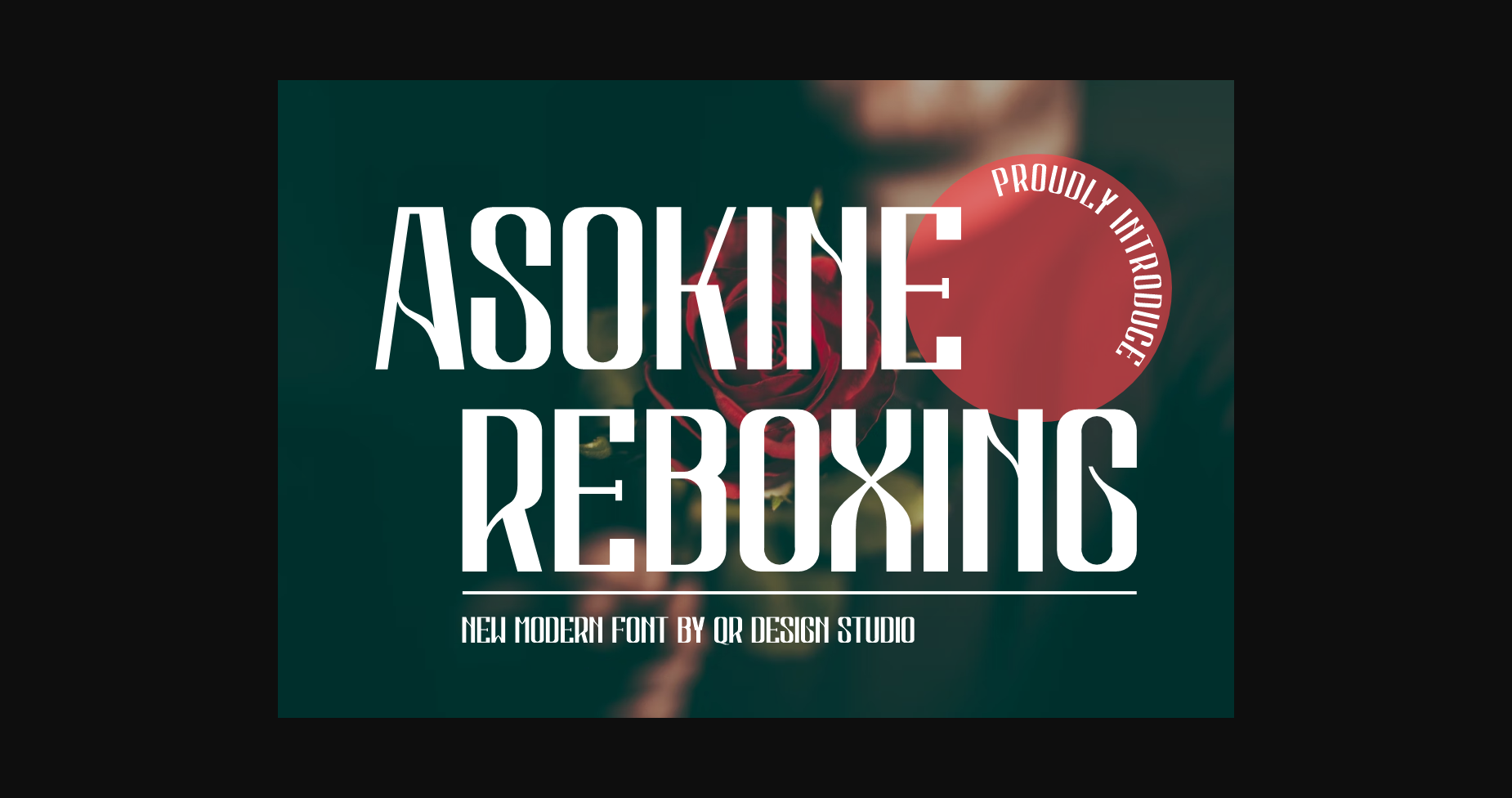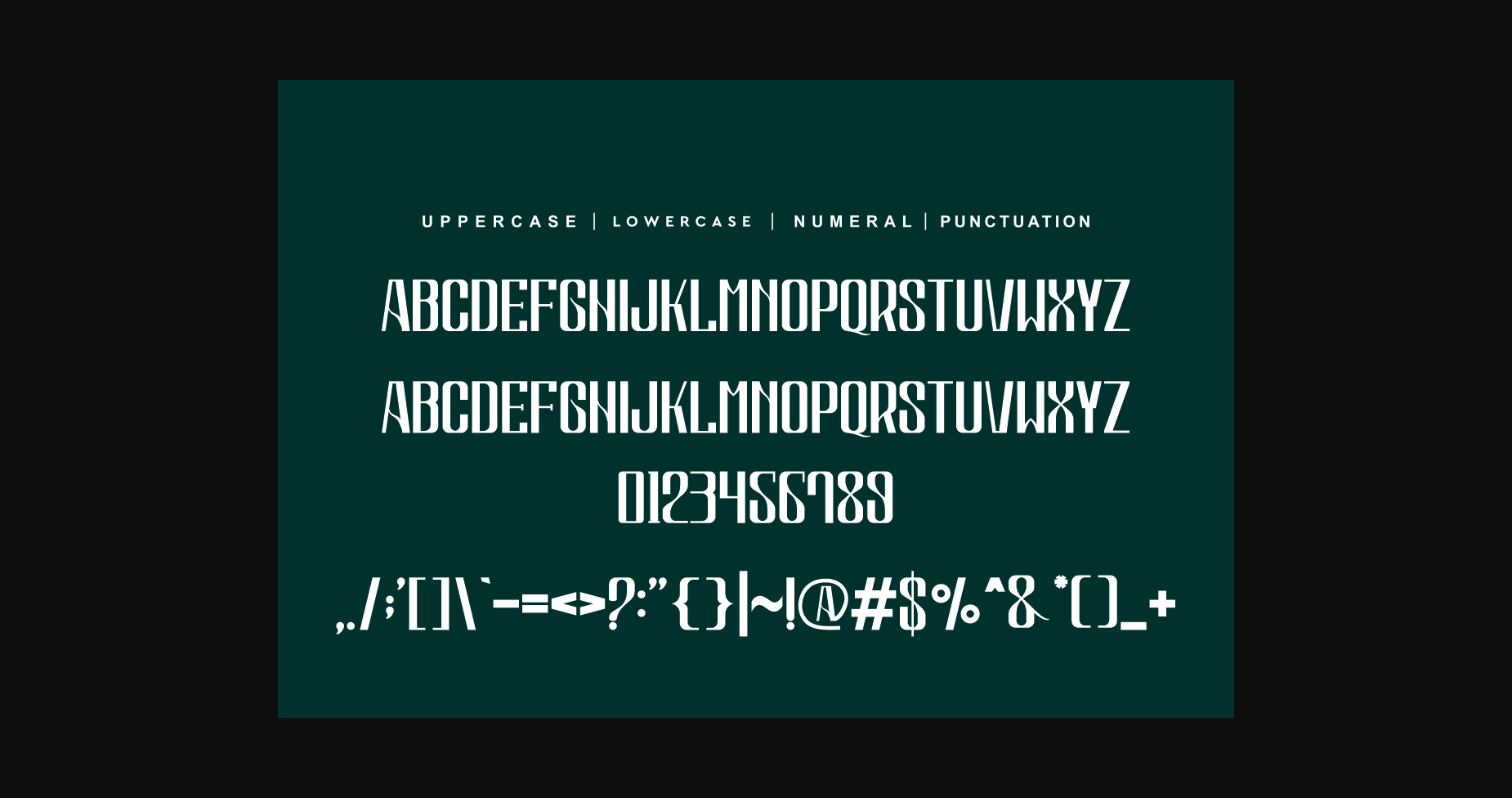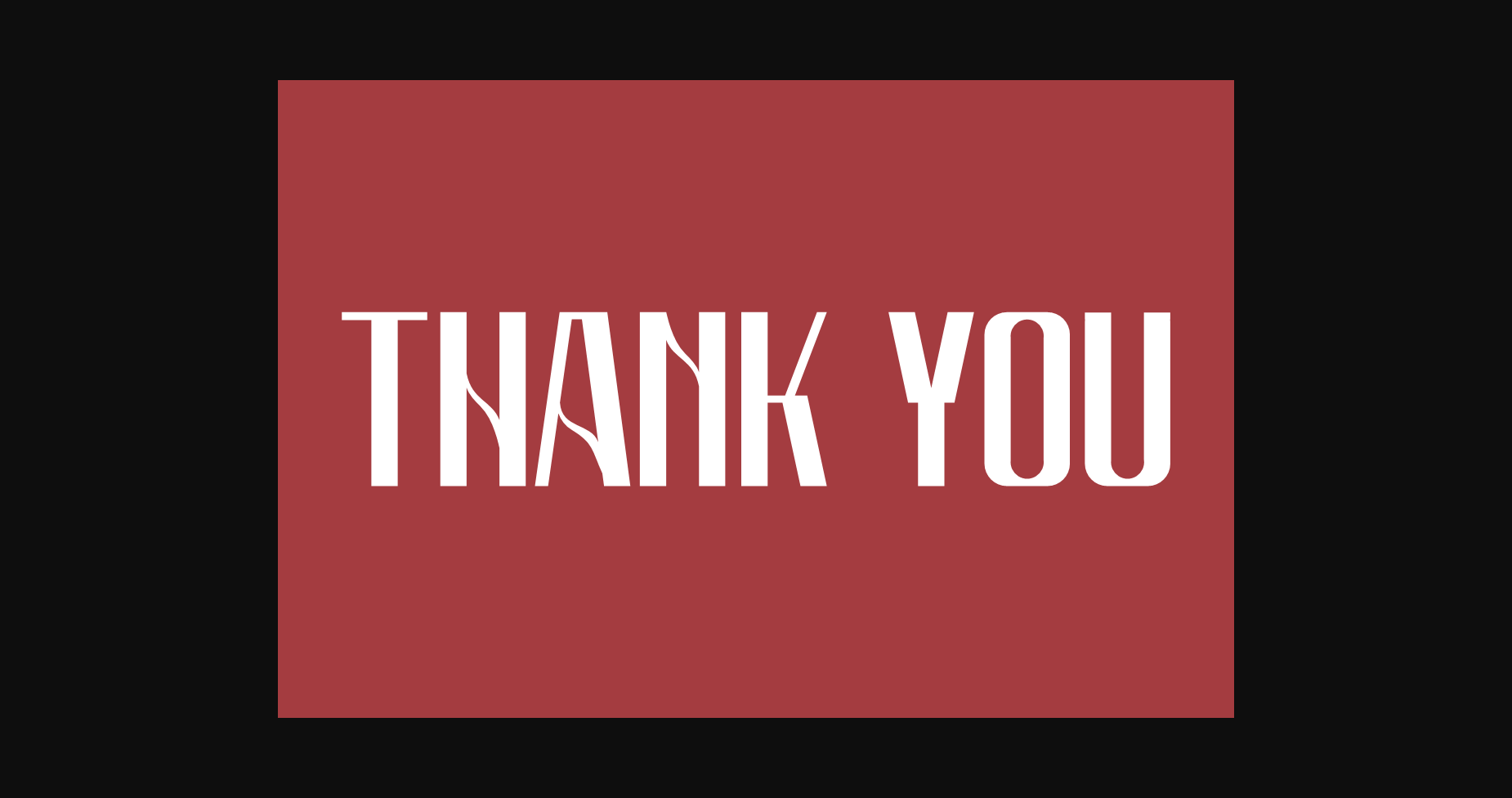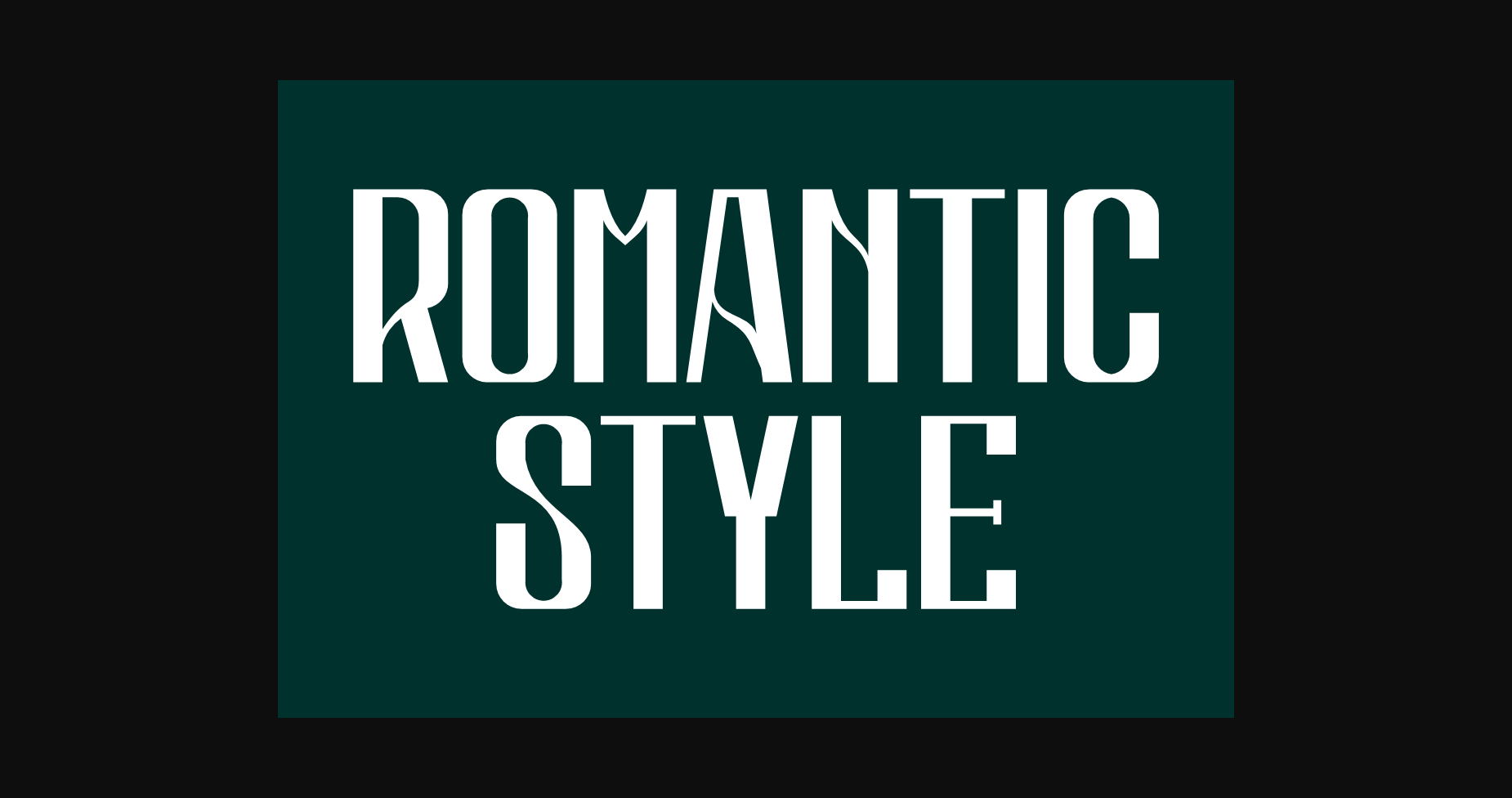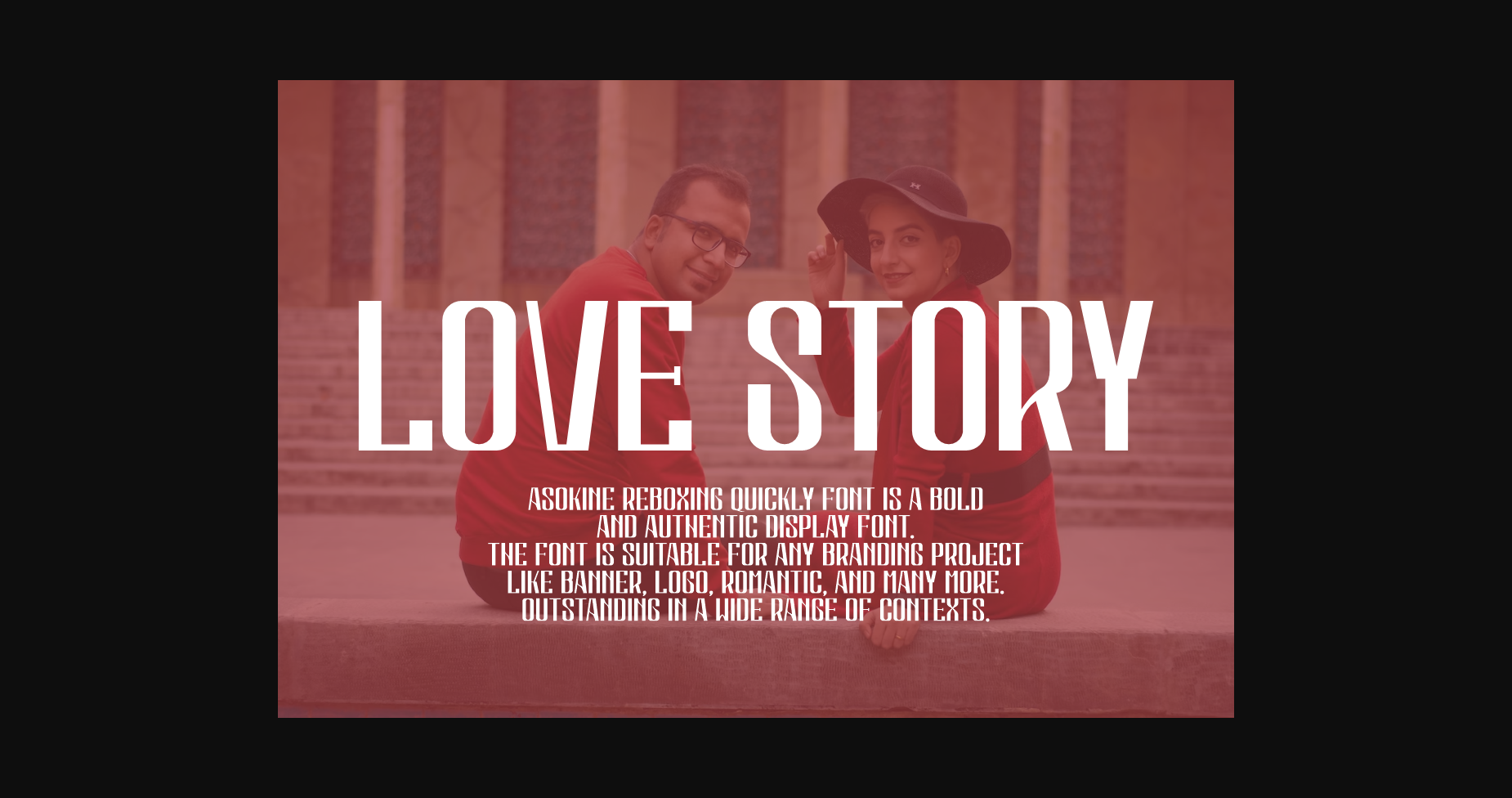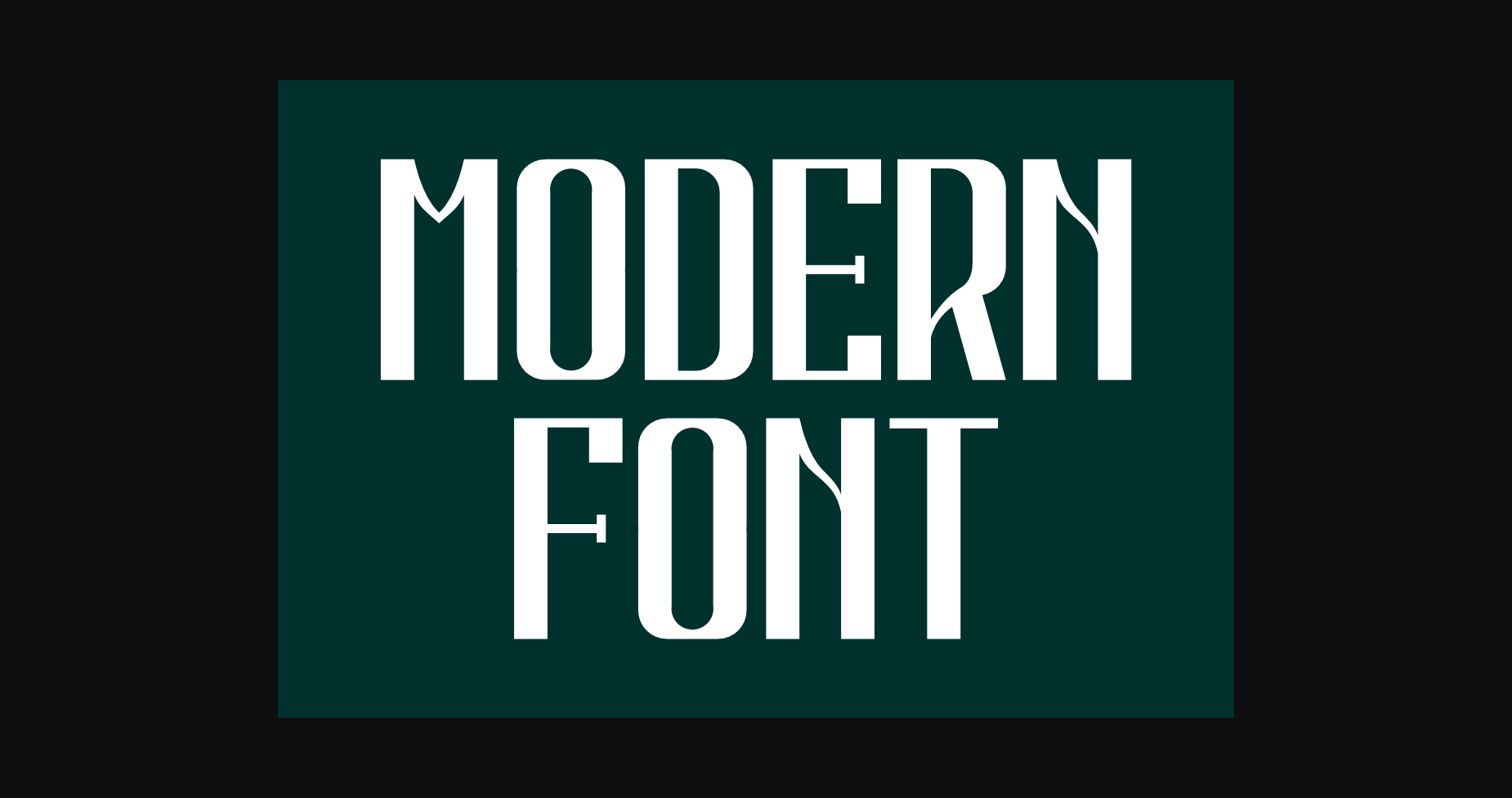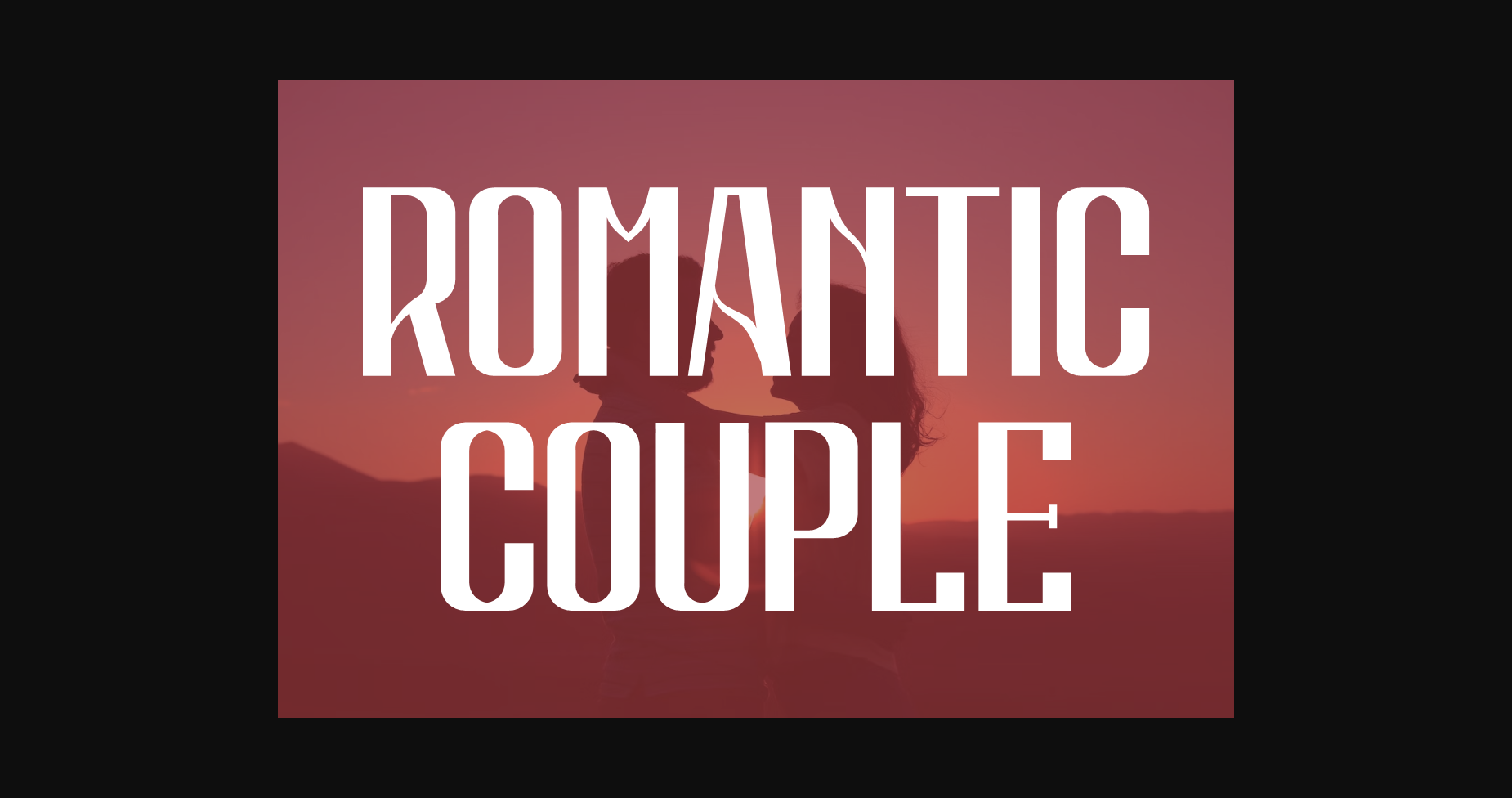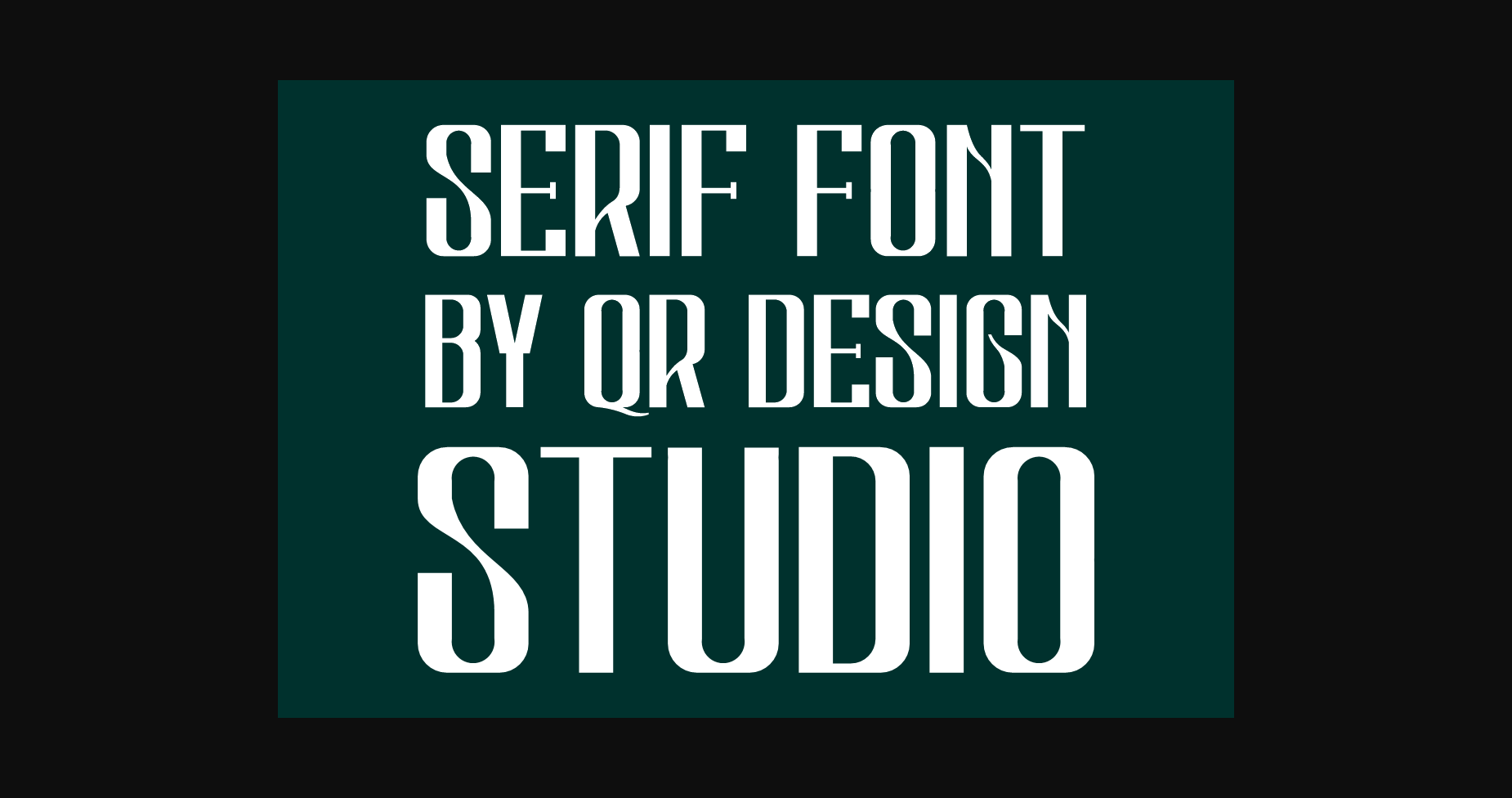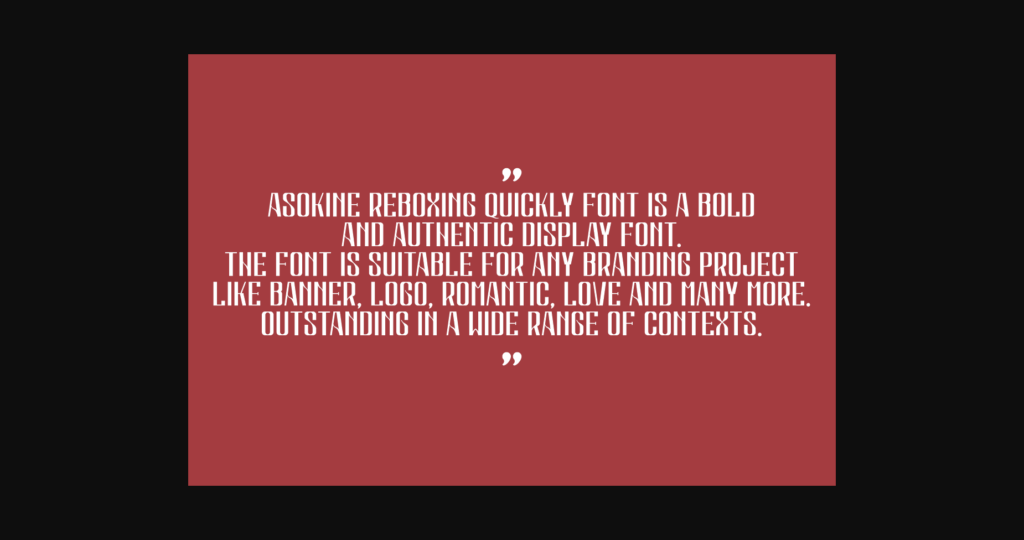
Asokine Reboxing Font
About Asokine Reboxing Font
Asokine Reboxing Font is a bold and modern all-caps display font with a sleek and minimalist sans-serif style. Its uppercase letters convey strength and confidence, ideal for headlines, titles, and branding. Its clean lines and sharp edges make it perfect for eye-catching designs in both print and digital formats.